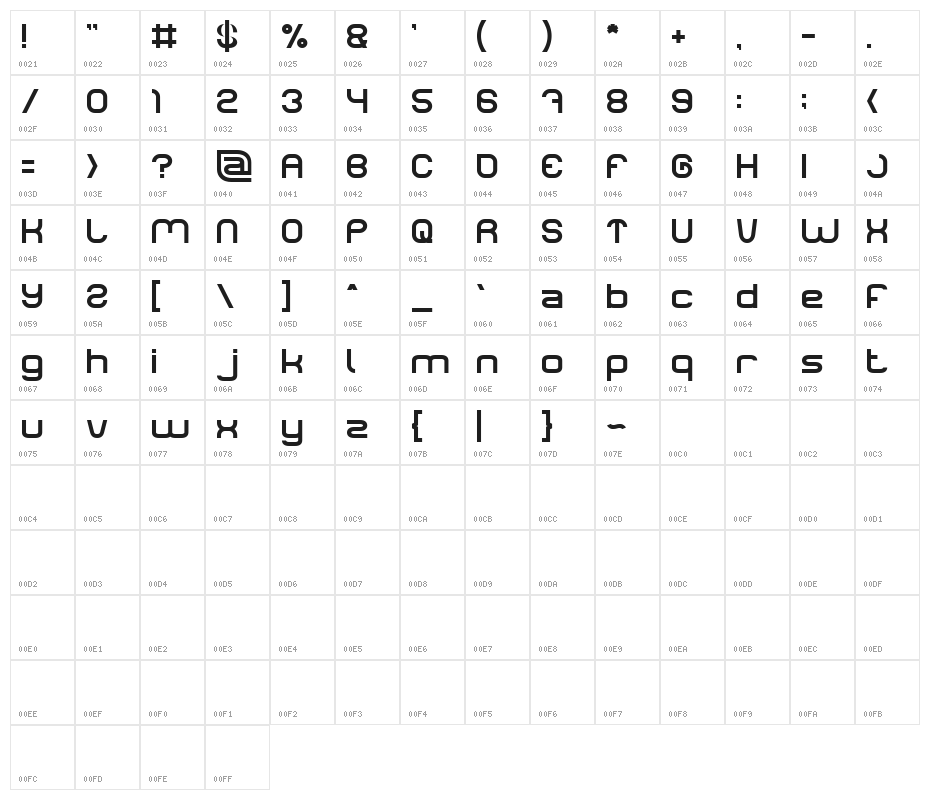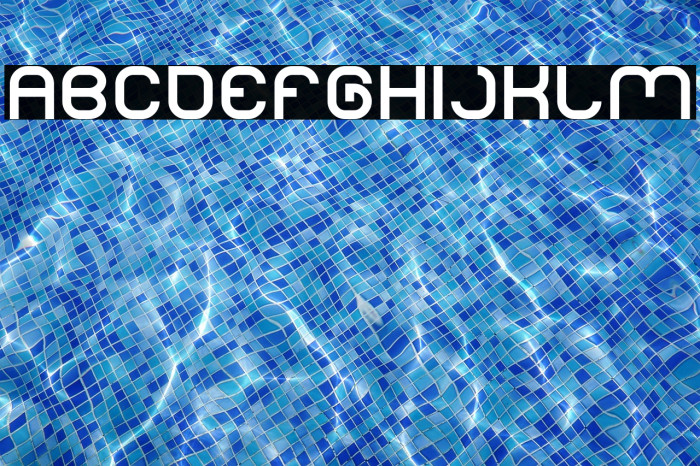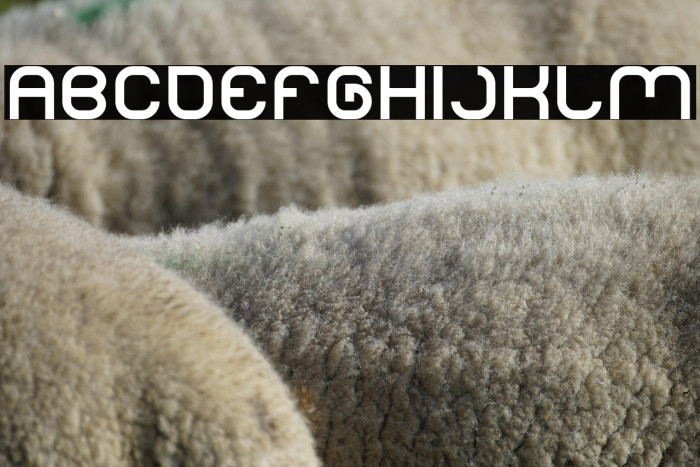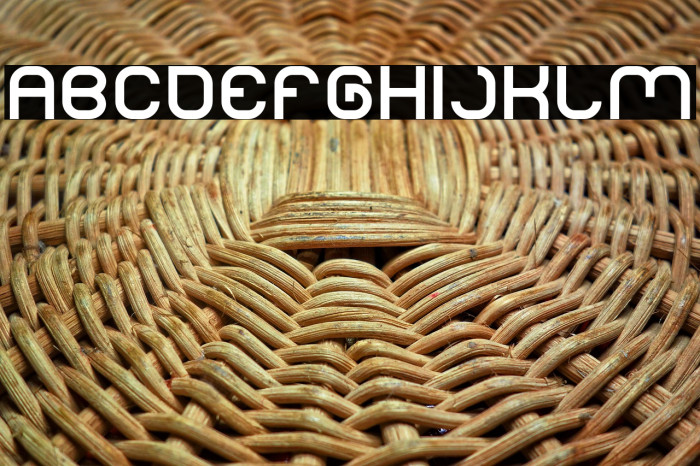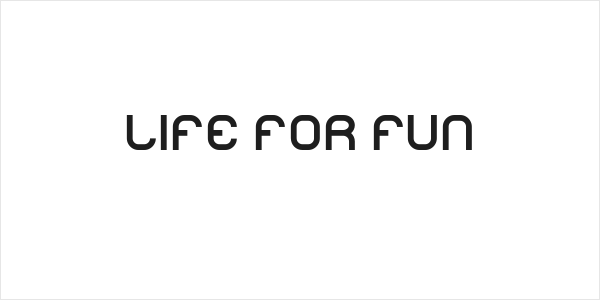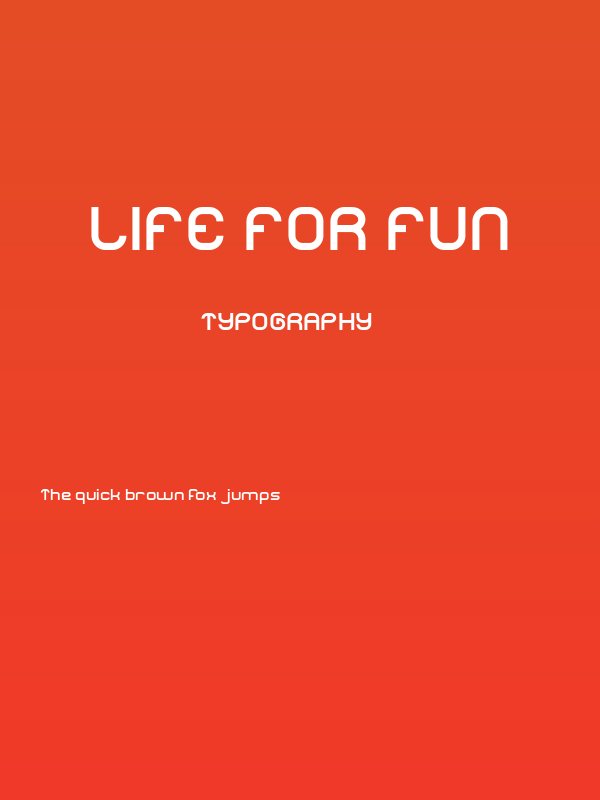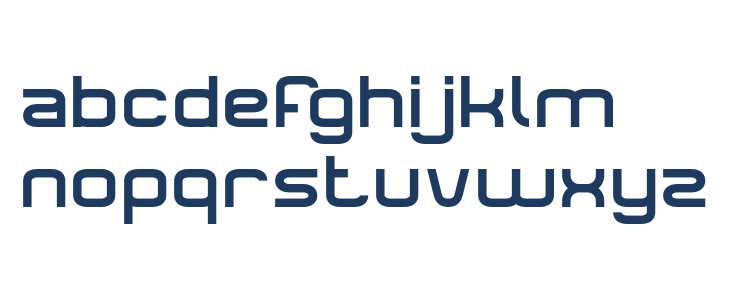
LIFE FOR FUN Font
This font features a modern and futuristic design with a geometric structure. The characters are crafted with rounded edges and consistent stroke widths, giving it a sleek and contemporary appearance. The uppercase letters have a uniform height, while the lowercase letters maintain a balanced and harmonious look. The numerals are clear and easily distinguishable, and the special characters are designed to match the overall aesthetic. This font is ideal for projects that require a clean and modern touch, such as technology branding, digital interfaces, and contemporary advertising.
| Proposed Projects | Ideal for technology branding, digital interfaces, and contemporary advertising. |